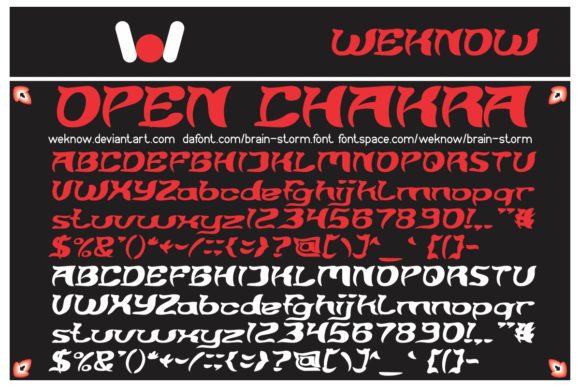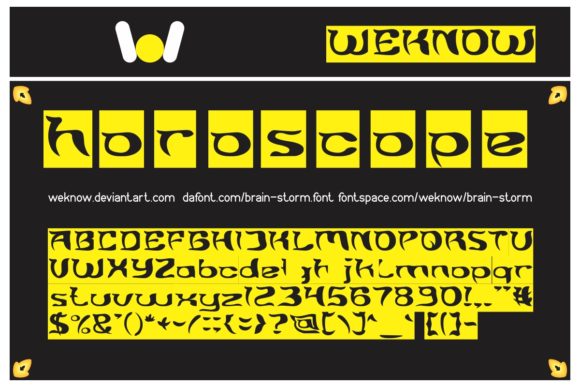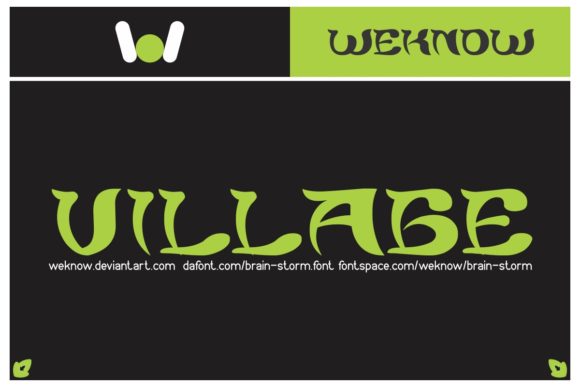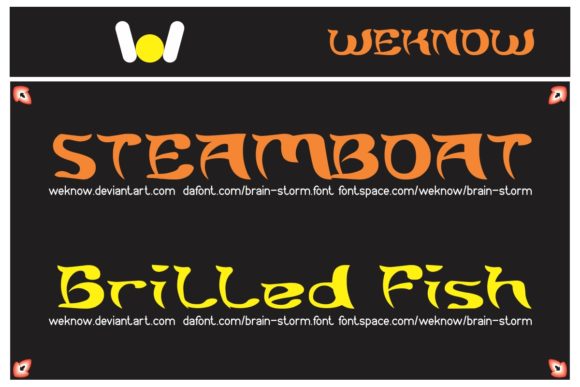
Brain Storm Font: Unleashing Creativity with a Unique Display Font
In the world of typography, fonts play a crucial role in conveying messages, evoking emotions, and creating visual identities. For designers and crafters, finding the perfect font can be a daunting task, especially when looking for something that stands out from the crowd. This is where Brain Storm Font comes into play – a distinct, creepy display font that blends traditional influences into a contemporary aesthetic.
The Brain Storm Font Difference
Brain Storm Font is not your average font. Its unique design combines traditional elements with modern twists, making it a versatile and exquisite choice for various design projects. Whether you’re working on a logo, a poster, or a digital platform, Brain Storm Font offers a subtle yet impactful look that’s sure to grab attention.
One of the key features of Brain Storm Font is its ability to blend into different design contexts seamlessly. Its creepy undertones add a layer of depth and intrigue, making it perfect for projects that require a touch of mystery or edginess. At the same time, its contemporary aesthetic ensures that it remains fresh and relevant, even in modern designs.
Key Characteristics of Brain Storm Font
- Distinct and Creepy: Brain Storm Font boasts a unique design that’s both captivating and unsettling. Its creepy undertones make it perfect for projects that require a touch of horror or mystery.
- Traditional Influences: The font combines traditional typography elements with modern twists, giving it a timeless yet fresh look.
- Contemporary Aesthetic: Brain Storm Font’s design ensures that it fits seamlessly into modern designs, making it a versatile choice for various projects.
- Exquisite and Subtle: Despite its bold and creepy features, Brain Storm Font can be used to achieve a subtle look that’s both elegant and refined.
- Maximum Versatility: The font’s unique design makes it suitable for a wide range of projects, from logos and posters to digital platforms and crafts.
Using Brain Storm Font in Design Projects
Brain Storm Font is an excellent choice for designers and crafters looking to add a touch of personality to their projects. Here are some ideas on how to use this versatile font:
- Logos and Branding: Use Brain Storm Font to create a unique and memorable logo that stands out from the crowd.
- Posters and Flyers: Add a touch of mystery and intrigue to your posters and flyers with Brain Storm Font’s creepy yet elegant design.
- Digital Platforms: Use Brain Storm Font to create engaging and interactive digital content, such as social media graphics, website headers, and more.
- Crafts and DIY Projects: Brain Storm Font can add a personal touch to your craft projects, such as handmade cards, scrapbooking, and other paper crafts.
Tips for Working with Brain Storm Font
To get the most out of Brain Storm Font, here are some tips to keep in mind:
- Experiment with Sizes: Brain Storm Font can be used in various sizes, from large headings to smaller text. Experiment with different sizes to find the perfect balance for your design.
- Play with Colors: The font’s design looks great in different colors, from bold and bright to subtle and muted. Experiment with different color schemes to find the one that works best for your project.
- Combine with Other Fonts: Brain Storm Font can be paired with other fonts to create a unique and visually appealing design. Experiment with different font combinations to find the perfect match.
Brain Storm Font is a unique and versatile display font that offers a blend of traditional influences and contemporary aesthetics. Its creepy yet elegant design makes it perfect for designers and crafters looking to add a touch of personality to their projects. With its maximum versatility and exquisite subtlety, Brain Storm Font is sure to become a go-to choice for anyone looking to create visually stunning designs.
Whether you’re a seasoned designer or a crafty DIY enthusiast, Brain Storm Font is definitely worth checking out. So why not give it a try and unleash your creativity with this distinct and captivating font?